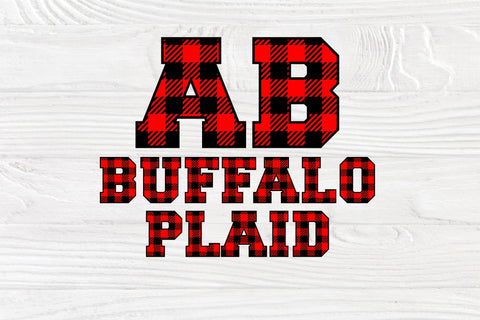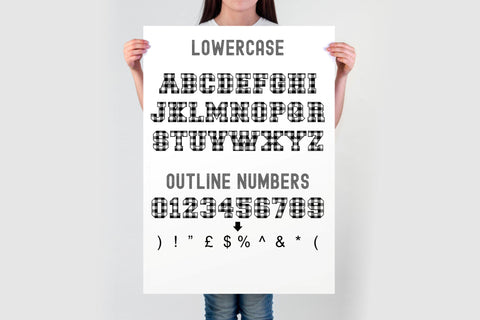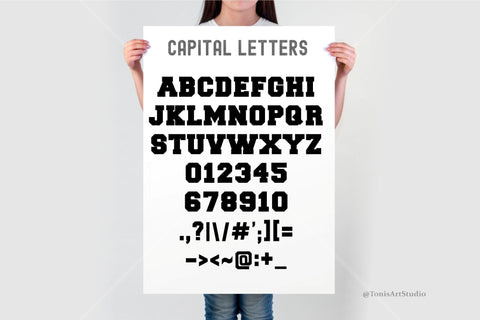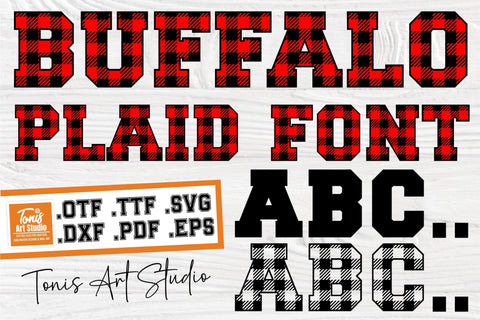
Add a cozy, rustic touch to your holiday projects with the BUFFALO PLAID Font! Featuring bold, checkered uppercase letters and lined lowercase letters, this unique typeface brings the warmth and charm of traditional plaid patterns to your designs. Whether you're crafting personalized Christmas cards, festive apparel, or winter-themed home decor, this font is perfect for creating that classic holiday feel.
Bold plaid uppercase letters and lined lowercase letters for versatile design options.
Ideal for creating holiday decor, Christmas gifts, ornaments, seasonal apparel, and more.
Perfect For:
Christmas Cards and Invitations
Festive Signs and Home Decor
Holiday Apparel (shirts, mugs, etc.)
Personalized Ornaments and Gifts
DIY Craft Projects with a Rustic Winter Aesthetic